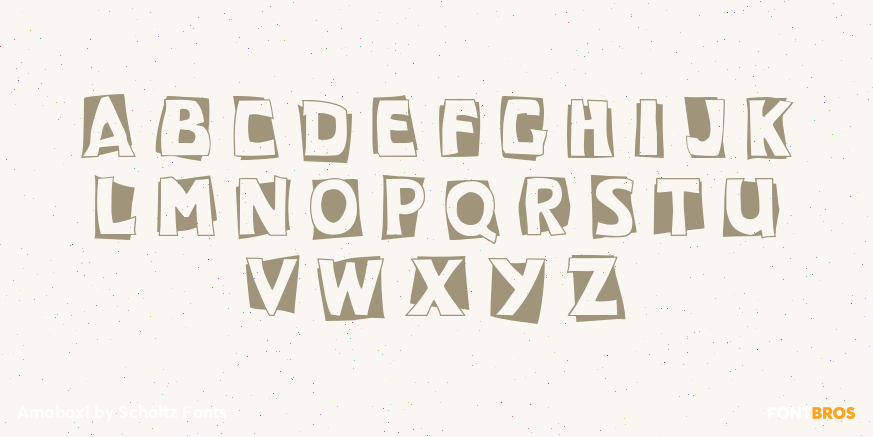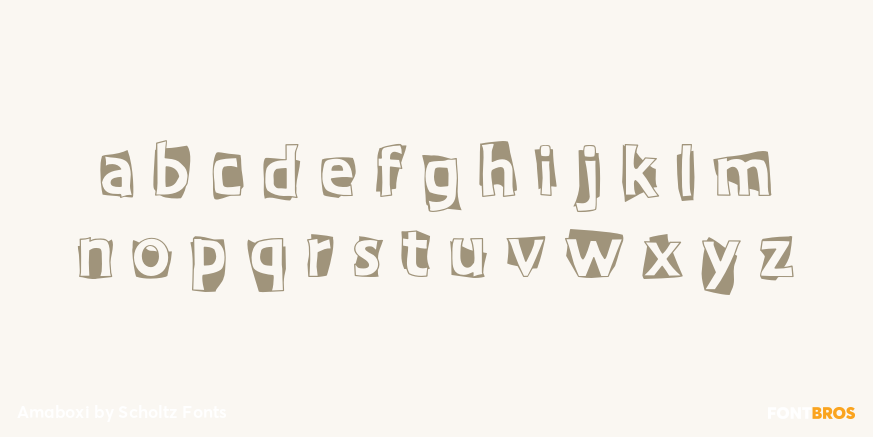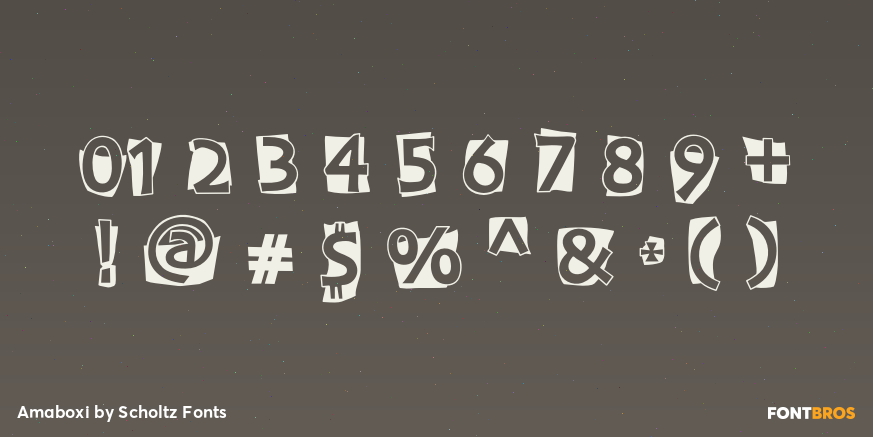
Amaboxi
Font Family by Scholtz Fonts
Buy NowIn Amaboxi the upper-case letters are all placed upon a background inspired by the cardboard boxes that many people in Africa use to carry their possessions. The box takes its shape from the character and conversely, the character is influenced by the shape of the box.
All characters except the six ?fractions? are included in Amaboxi. It includes all upper and lower case letters as well as all numerals, punctuation, accented and special characters. All characters have been letter-spaced and kerned in terms of the box (not the character). This improves legibility, however, the inter-character spacing has been minimized so that there is often a very slight overlap between the boxes of adjacent characters. This generates an exciting and variable ?white space? around the characters.